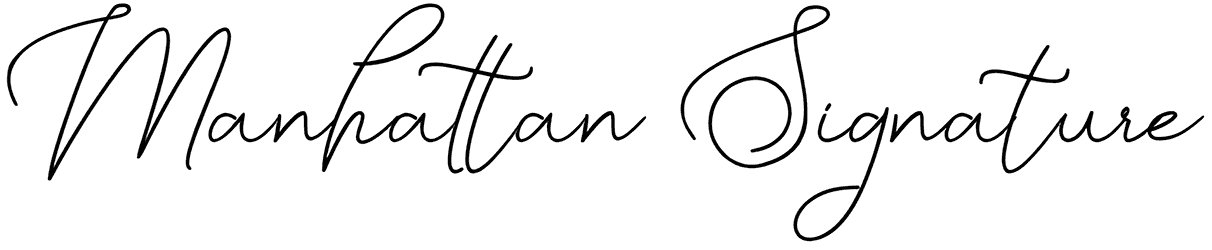
Manhattan Signature Font
Being impressive is the key point of any project, and using ravishing words is what you need to get there. Manhattan Signature, as a calligraphy font, with its delicate, smooth, and realistic form, has the power to make it happen and engage a lot of followers.
Sadly, this signature font doesn’t offer numbers and most of the punctuation marks, but it completely depends on your creativity; it can shine in many projects like logos, business cards, websites, and the like.